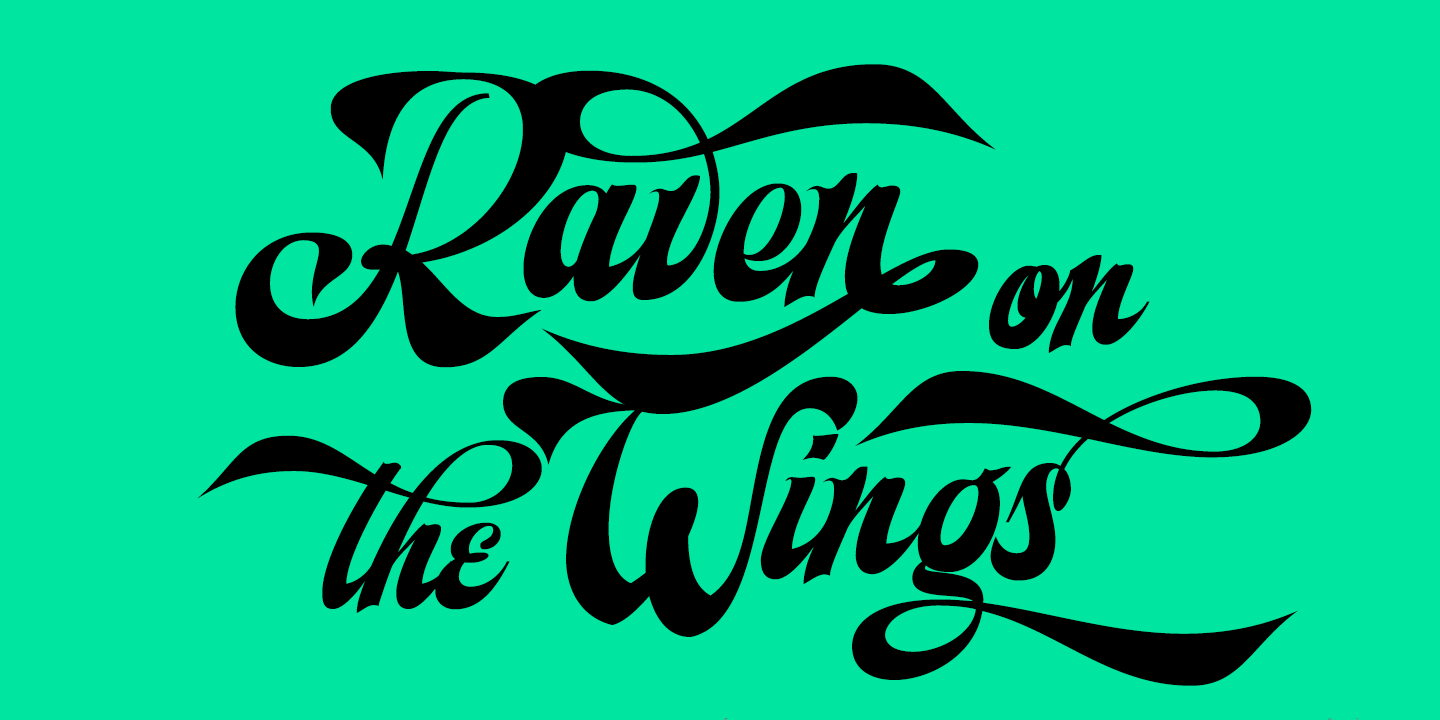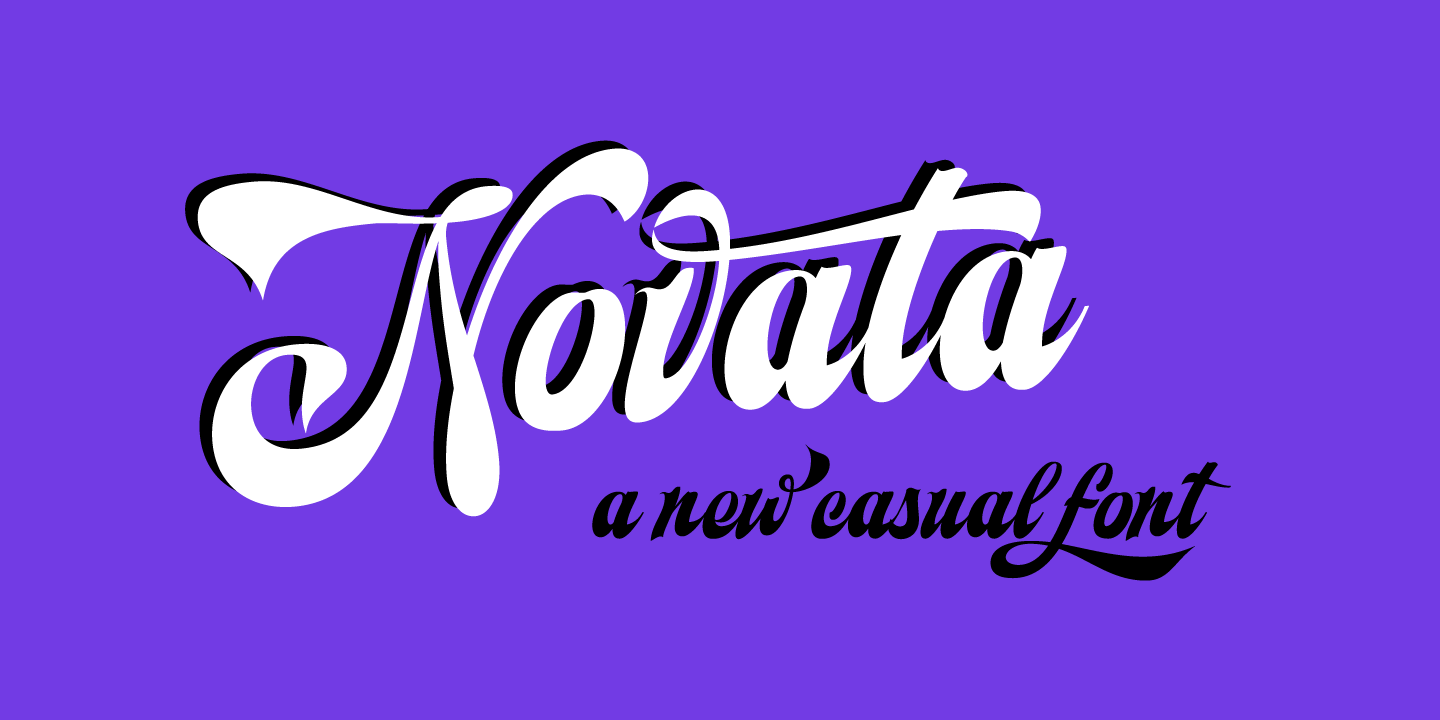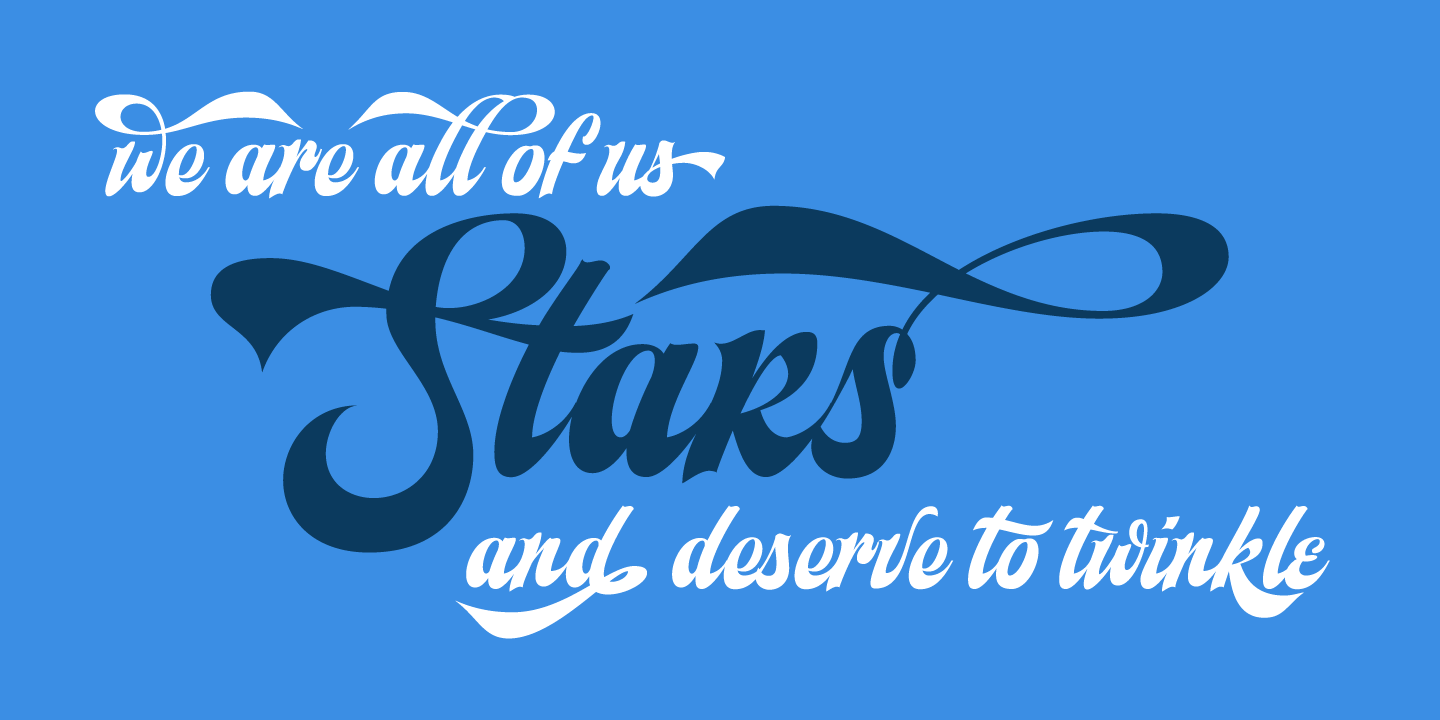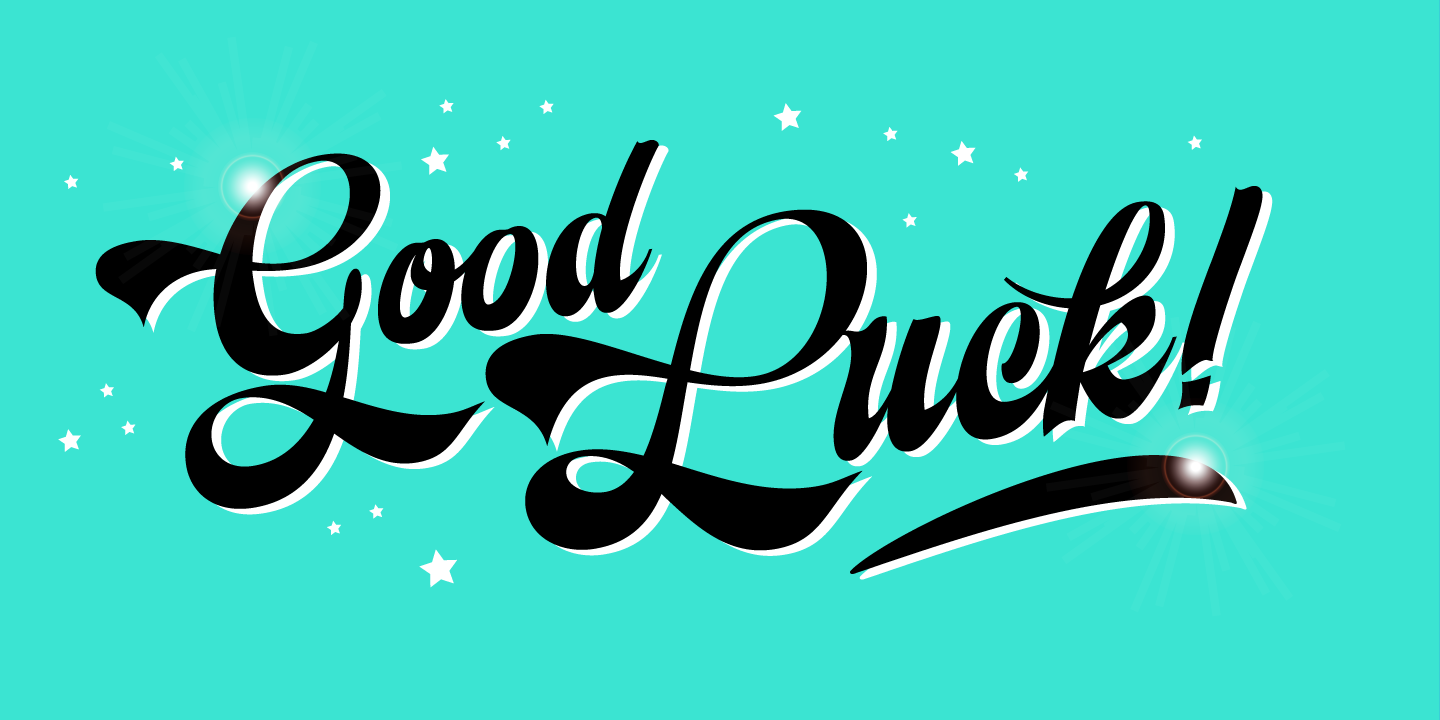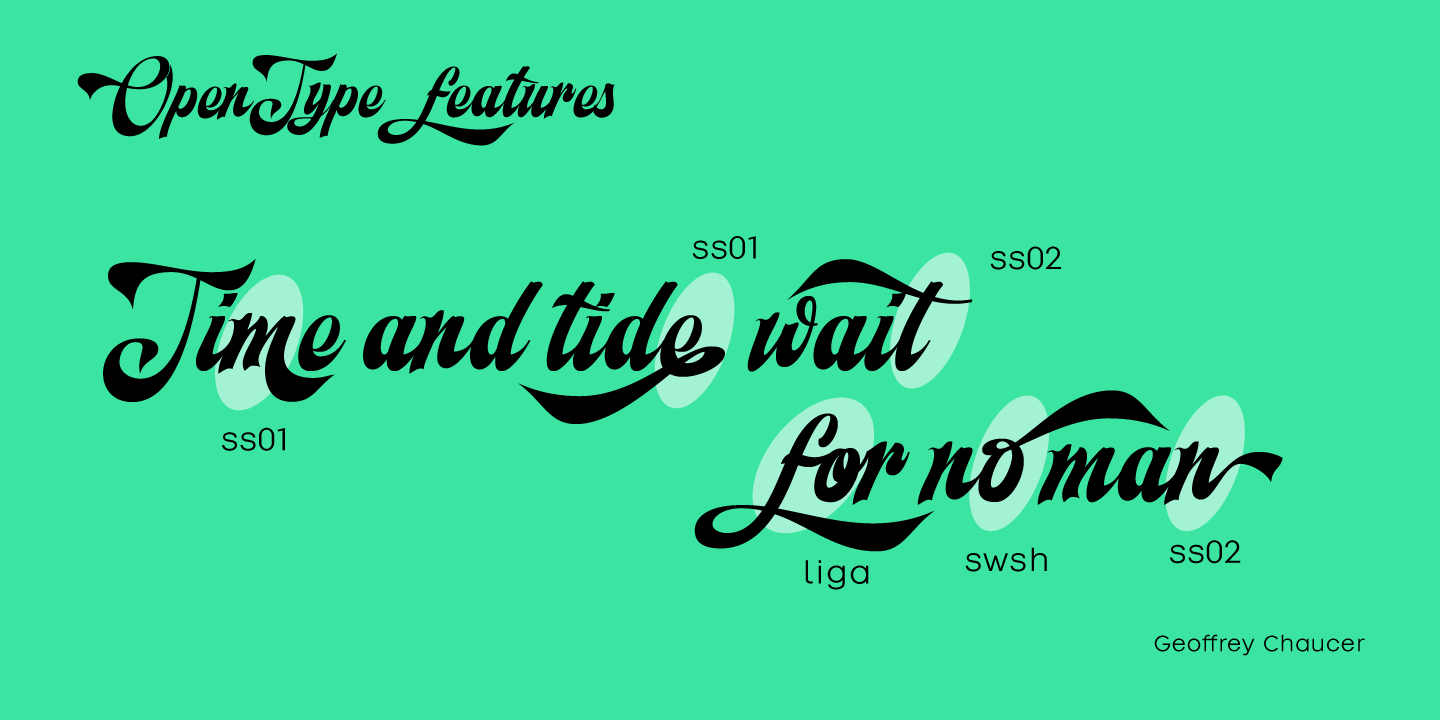
Novata
Expressive & Natural Script
Novata is a fresh and expressive script typeface designed to bring a natural, casual, and organic feel to your designs while maintaining a strong and distinctive personality. Its fluid strokes and handcrafted look make it perfect for branding, packaging, social media, invitations, logos, and any project that calls for authenticity and warmth.
Extensive Glyph Collection
Novata comes packed with 529 glyphs, offering extensive creative flexibility. It includes a rich set of stylistic alternates, contextual alternates, swashes, and numerous ligatures, allowing you to mix and match characters to create unique, custom-looking lettering with ease. The dynamic OpenType features automatically enhance the flow and realism of your text, giving it a truly handwritten appearance.
Versatile & Eye-Catching
Whether you’re crafting elegant headlines or playful compositions, Novata helps you achieve original and eye-catching results every time.